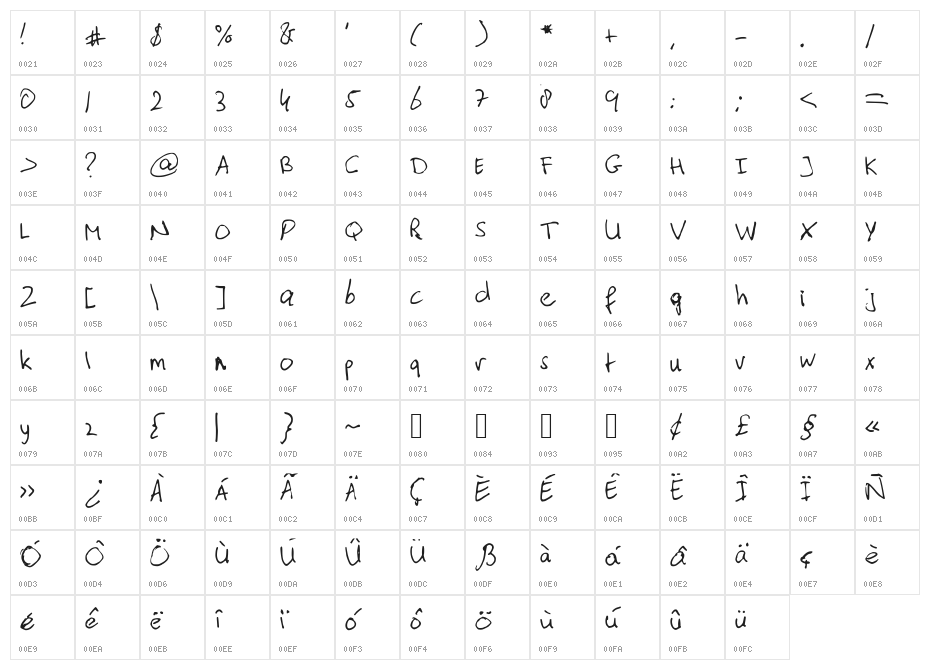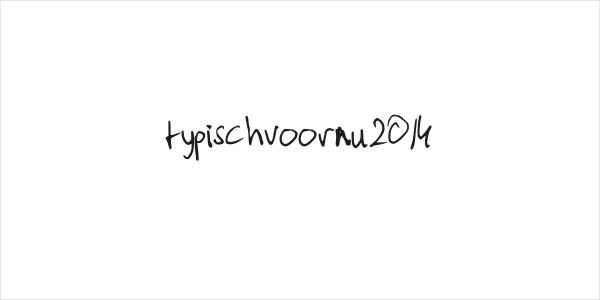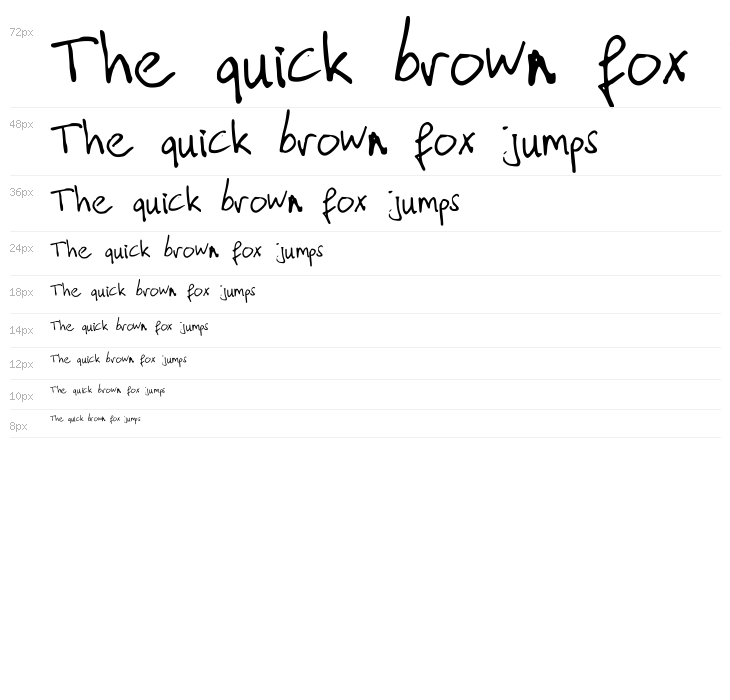
typischvoornu2014 Font
This font exhibits a casual, handwritten style with a playful and informal appearance. The letters are slightly irregular, mimicking the natural flow of handwriting. Each character has a unique, personal touch, with varying stroke thickness that adds to its charm. The uppercase and lowercase letters maintain a consistent style, while the numerals and special characters complement the overall aesthetic. This font is perfect for projects that require a personal, approachable feel.
Overall StyleCasual, Playful
Use CaseHeadlines, Informal text, Creative projects
Proposed ProjectsIdeal for greeting cards, personal notes, informal invitations, and creative projects that require a personal touch.